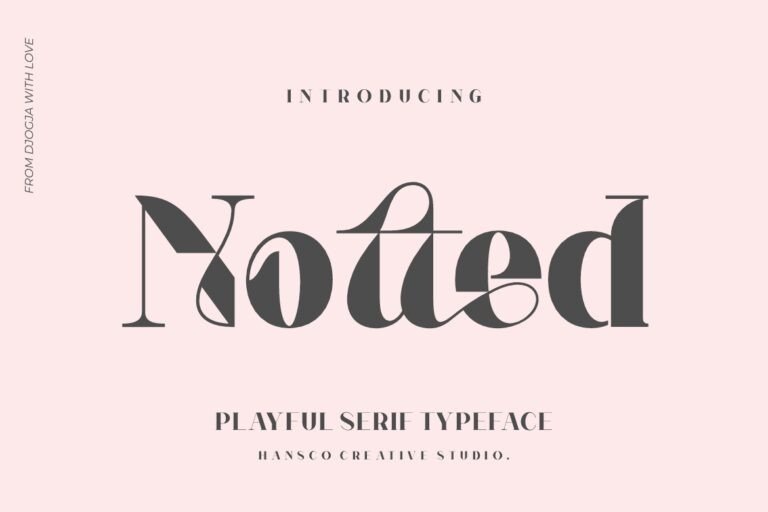
Notted Font
Notted Display Font, designed by HansCo is a stylish font inspired by 70’s vintage fashion posters with a touch of modernity. This font is suitable for branding, packaging, logos, weddings, magazines, newspapers, greeting cards and much more, so what are you waiting for!